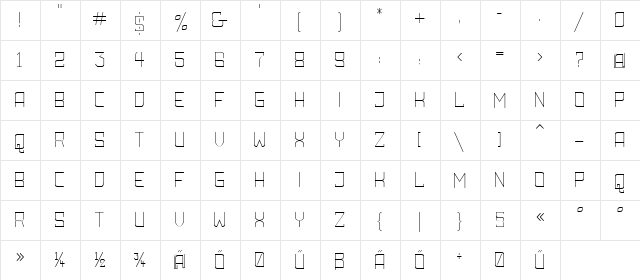
Amboss Condensed ExtraLight Font Preview
Amboss Condensed ExtraLight
Design Context for Amboss Typeface
Amboss offers clean, dependable letterforms without strong stylistic allegiance, making it a practical choice for designers who need flexibility. Its slender proportions lend an understated elegance to any composition. Its narrow stance lets it pack a punch even in space-constrained designs.